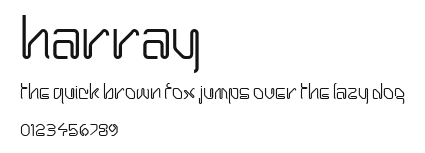
HARRAY Preview
About HARRAY.ttf
HARRAY.ttf is a modern, elegant sans-serif font designed for ultimate readability and visual harmony. Perfect for branding, headlines, web design, and print materials.